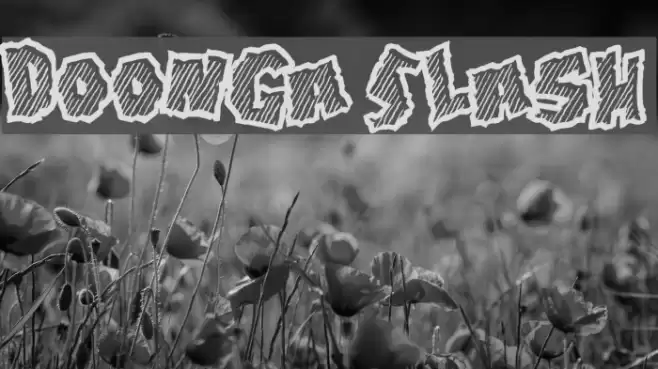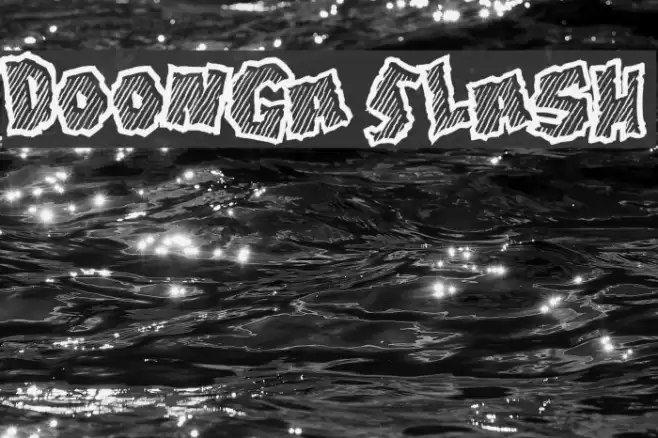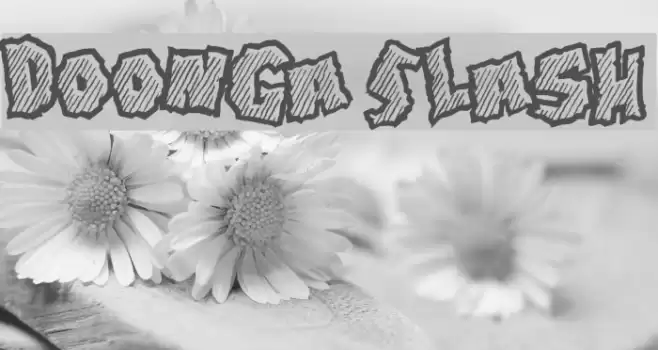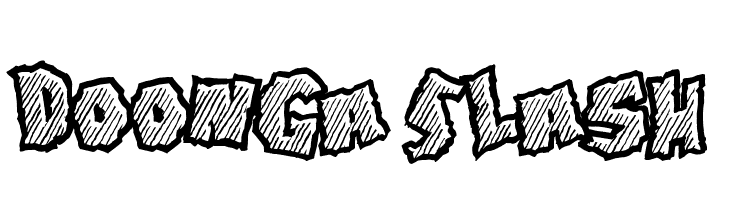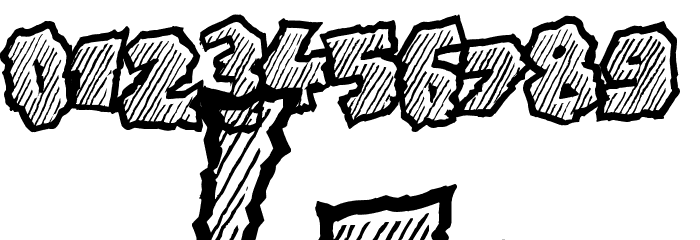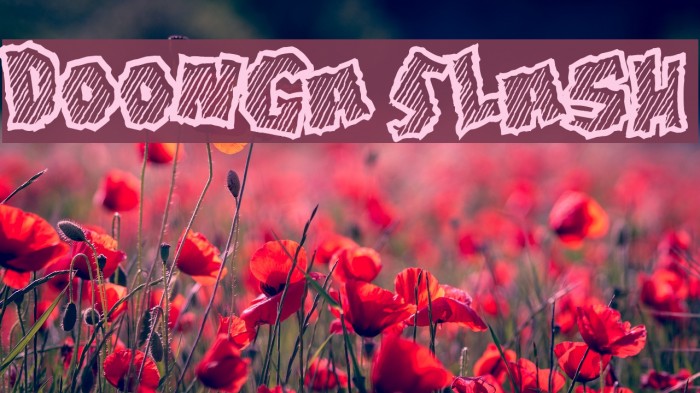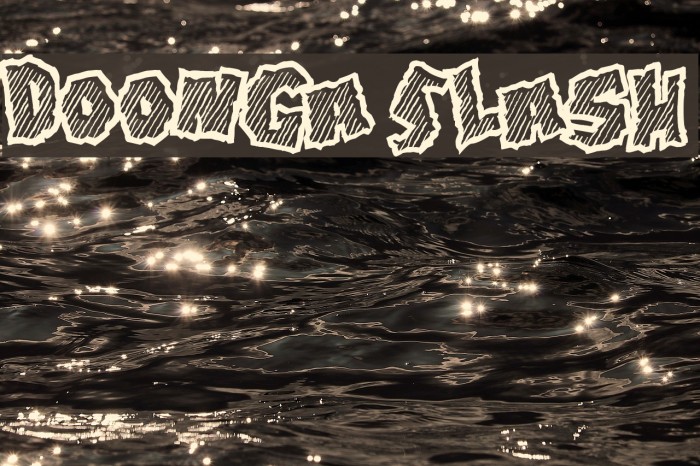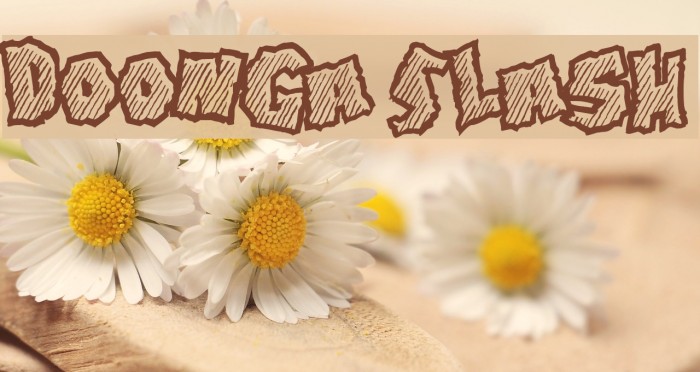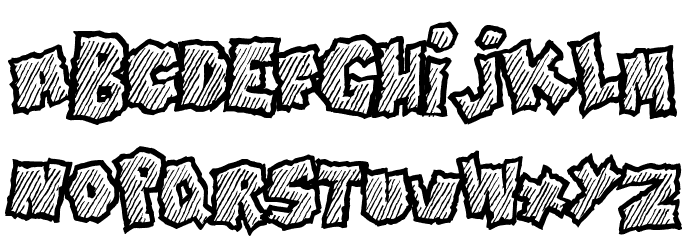
Doonga Slash Font
Doonga Slash Description
This font features a bold, hand-drawn style with a rough, sketch-like appearance. The characters are outlined with a thick, uneven stroke, giving them a dynamic and energetic feel. The interior of each letter is filled with diagonal lines, adding texture and depth. The overall design is playful and informal, making it suitable for creative and artistic projects. The uppercase and lowercase letters share a consistent style, maintaining the same boldness and sketchy texture. Numbers and special characters are also included, following the same design principles. This font is ideal for projects that require a unique and eye-catching typeface.
A bold, sketch-style font with a playful and dynamic appearance from Uncategorized fonts.
- Proposed Projects: Perfect for comic books, posters, album covers, and creative branding.
- Overall Style: Playful, Artistic